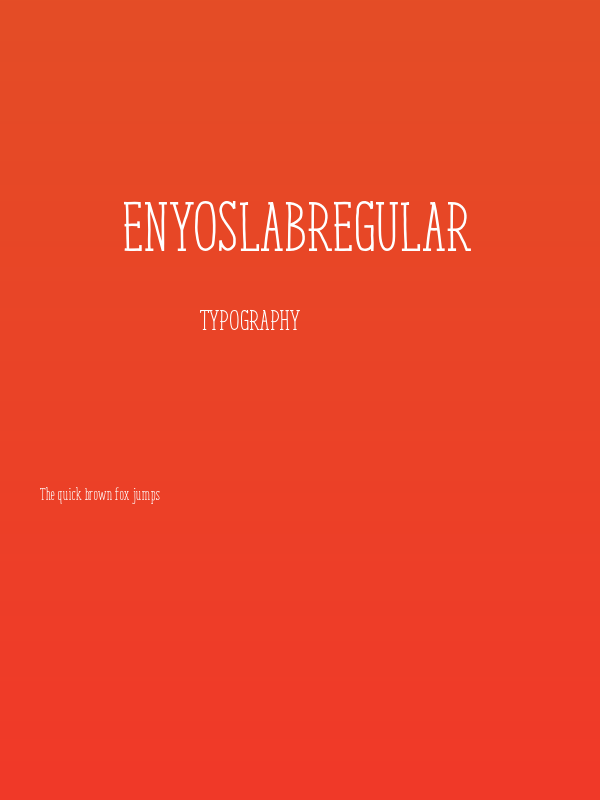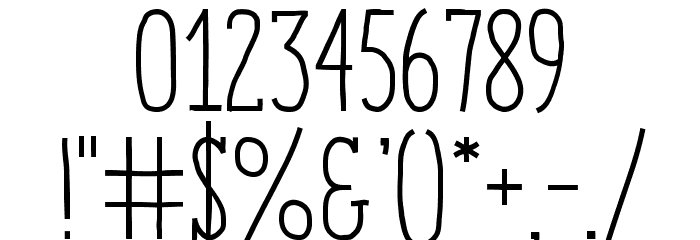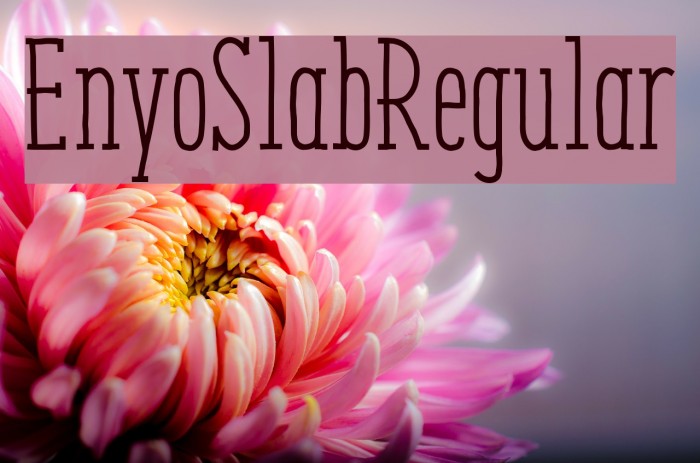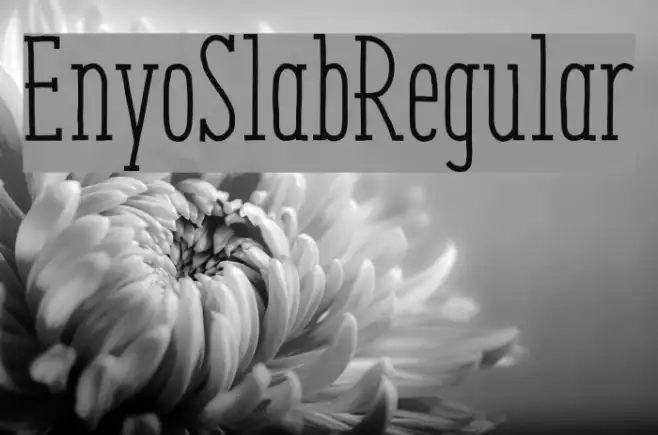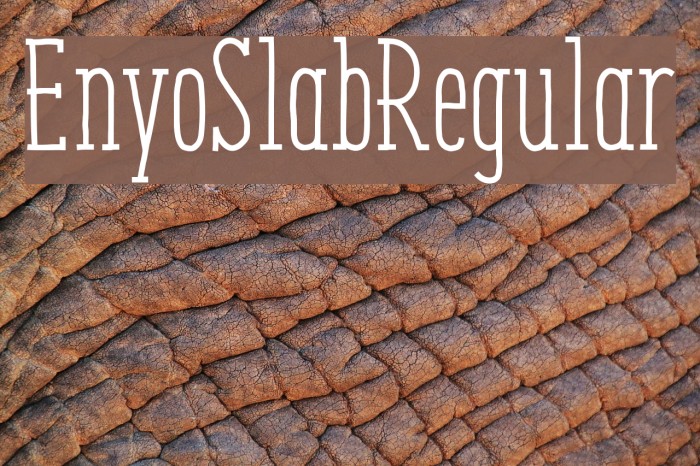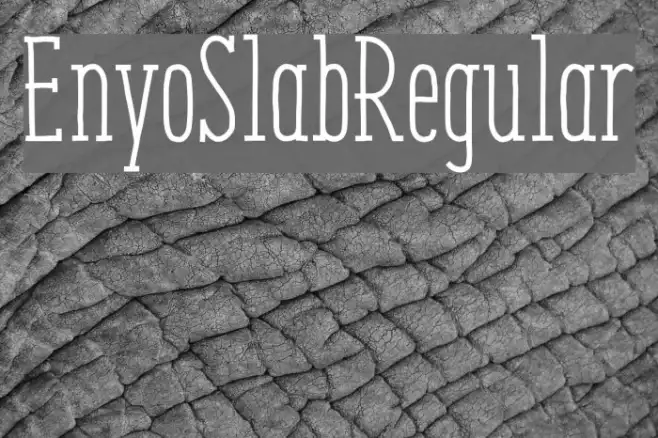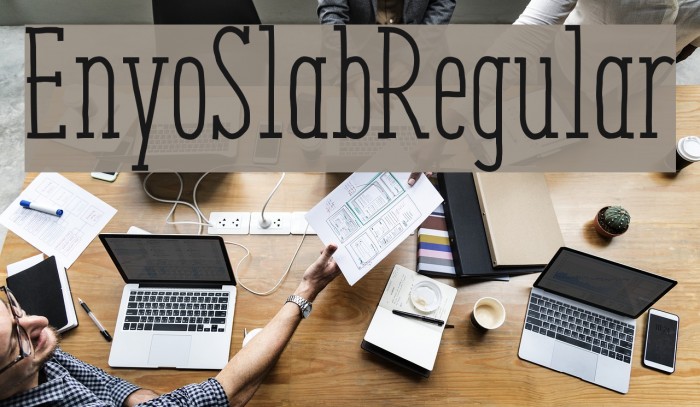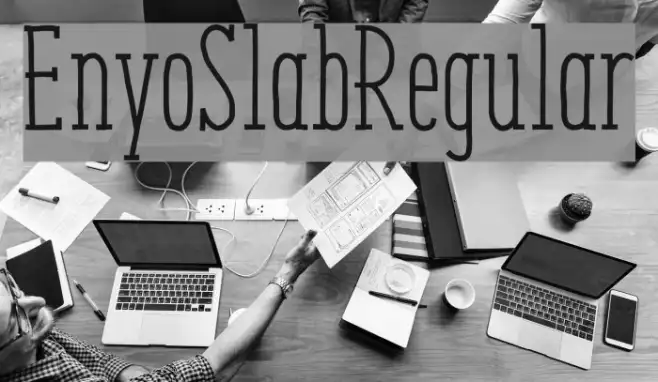
EnyoSlabRegular Font
EnyoSlabRegular Description
This font features a distinctive slab serif style with a modern twist. The characters are tall and narrow, giving a sense of elegance and sophistication. The serifs are pronounced yet not overly heavy, providing a balanced look that is both classic and contemporary. The uppercase letters are uniform in height, while the lowercase letters maintain a consistent baseline with slight variations in ascenders and descenders. The numerals are clear and easy to read, making them suitable for various applications. Special characters are well-defined, adding versatility to the font's use. Overall, this font combines traditional serif elements with a modern aesthetic, making it suitable for a wide range of design projects.
| Proposed Projects | Ideal for editorial design, branding, and advertising where a modern yet classic look is desired. |